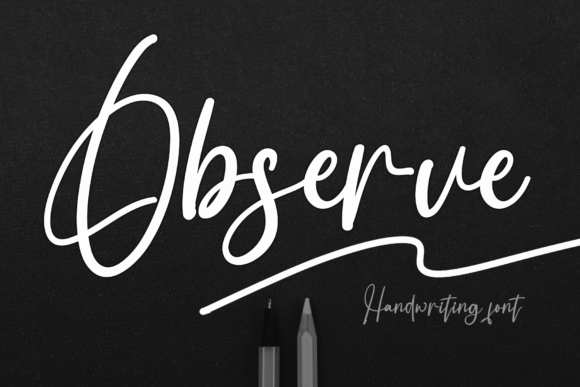
Welcome to the world of Observe Font – the perfect font for film script lovers who seek an emotional and captivating experience. Created by the brilliant team at Black line, this script font family is sure to take your design game to the next level!
Observe is not just any font – it is a sweet and beautiful handwritten font that features characters that dance along the baseline. It is a font that is perfect for creating a luxurious and sophisticated look for your design projects. From movie titles to logos, Observe Font adds a touch of elegance to everything it touches.
The intricate details of this script font family are truly mesmerizing. The smooth curves and unique brush strokes bring a sense of creativity and passion to any design. With Observe Font, you have the power to express your emotions and creativity in a way that captivates your audience.
Whether you're creating a romantic invitation, a thoughtful greeting card, or a captivating movie poster, Observe Font is the perfect choice. It's a font that speaks to the heart and soul, adding an emotional touch to your design projects that will leave a lasting impression.
Don't settle for ordinary fonts – choose Observe Font and elevate your design game to the next level. With its beauty, elegance, and emotion, it's a font that's sure to make a statement and leave a lasting impression on anyone who sees it.